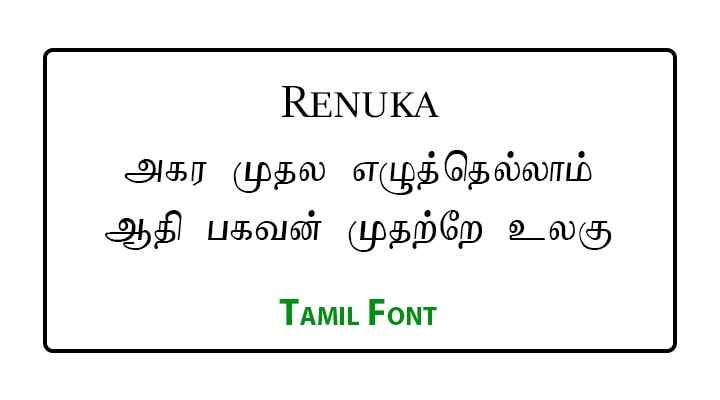
Renuka Tamil Font Free Download. Renuka is one of the Tamil Stylish Regular Font. Specially used in publications. Here you can download Font and Keyboard Layout for Free. This font is widely used by Tamil Nadu and Sri Lankan Tamil Peoples. The following font was design and generated by by Fontograpgher 3.5.
Renuka Tamil Font Preview